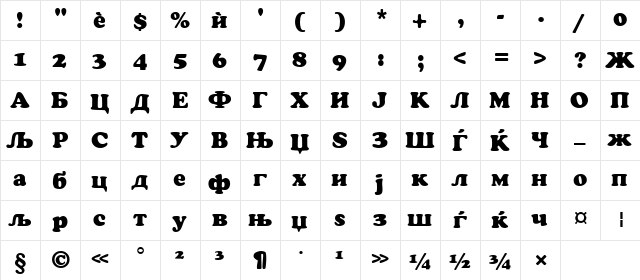
Macedonian Copper Regular
Design Context for Macedonian Copper Typeface
Macedonian Copper takes a measured approach to typography — its balanced proportions and neutral character make it a reliable workhorse for both digital and print work.